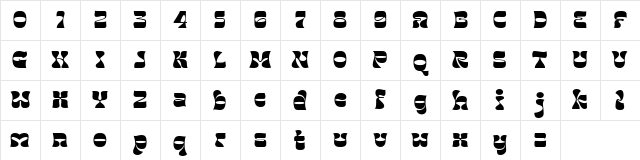
Complete Janger Regular glyph index. Displaying only characters natively supported by Janger Regular font.
Janger is a composed and adaptable typeface that performs quietly and consistently across a wide range of design contexts.